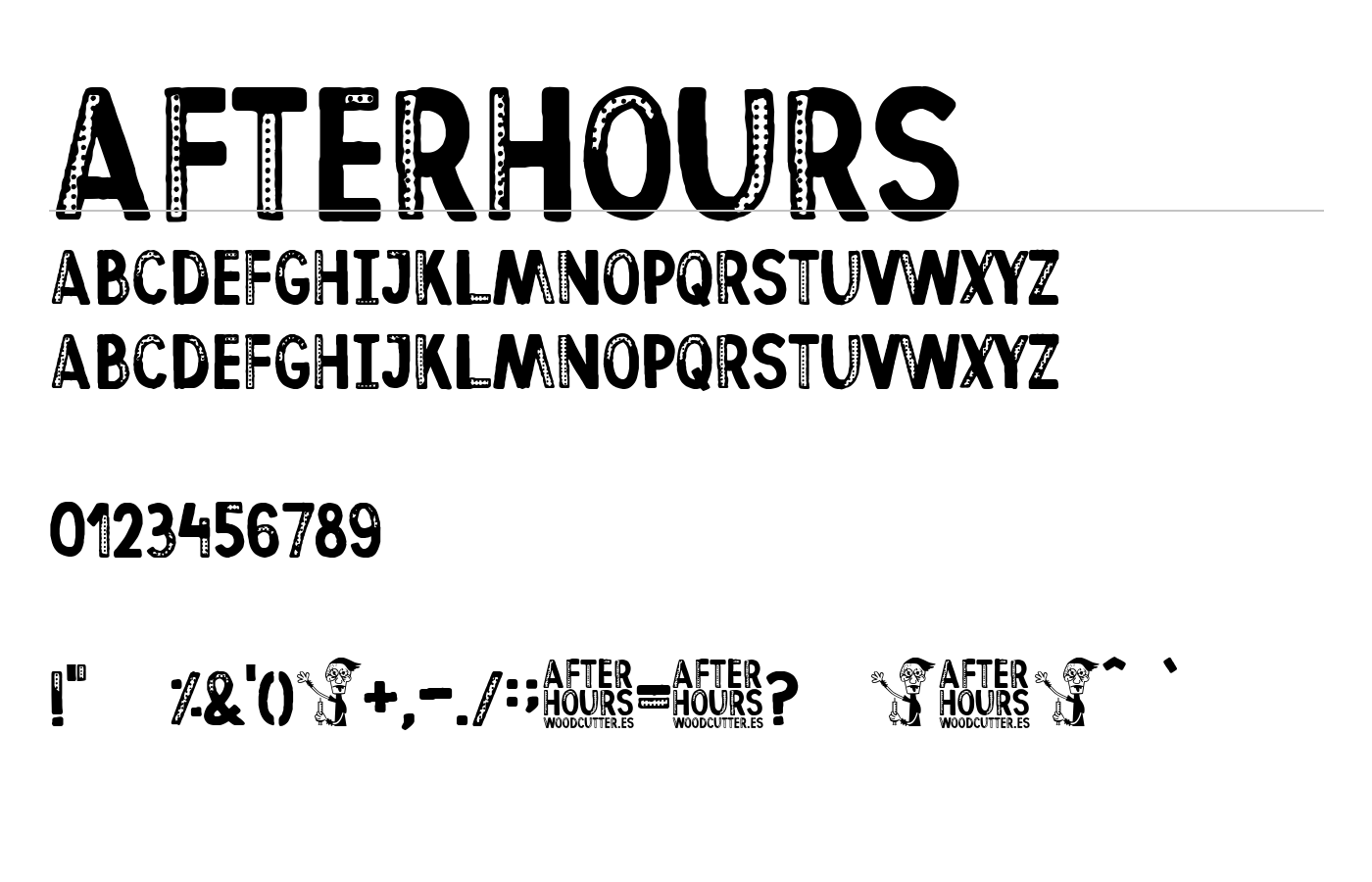
Afterhours Font is a bold, condensed sans serif with a playful, textured design that creates a handcrafted, slightly worn look. Its irregular shapes and rough edges give it a lively, informal feel, making it ideal for creative projects, posters, and branding that want to capture a fun, vintage-inspired vibe. This font works especially well for headlines and logos that seek a distinctive, eye-catching personality.
Afterhours Font
About Afterhours Font